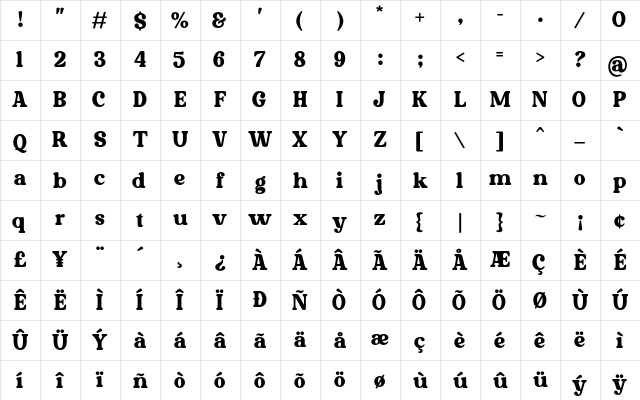
Morally Serif Regular Free Font
Morally Serif Regular
Design Context for Morally Serif
Morally Serif carries the refined structure of traditional serif typography, with bracketed terminals and considered proportions that communicate credibility and craft.
Pro Tip: Use Morally Serif for editorial body copy and considered headline work. Pair with a neutral sans for UI elements or captions to create a classic hierarchy.